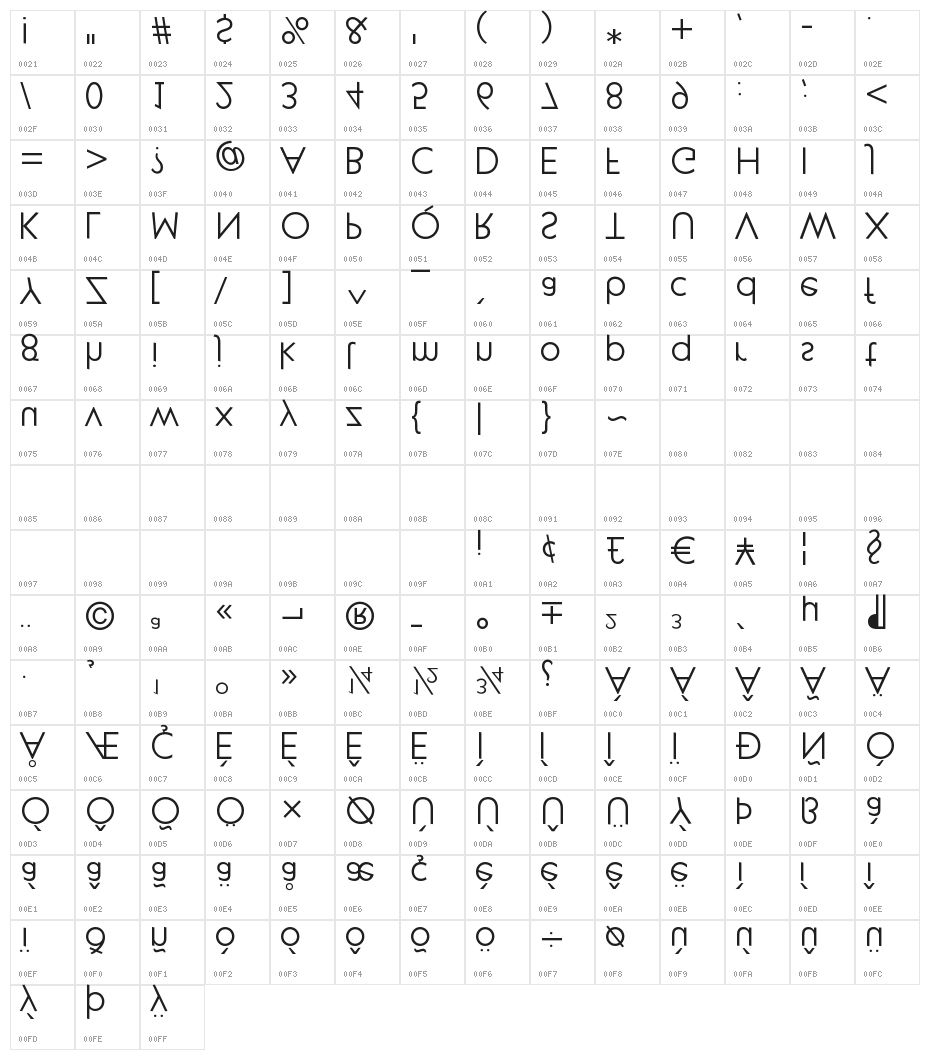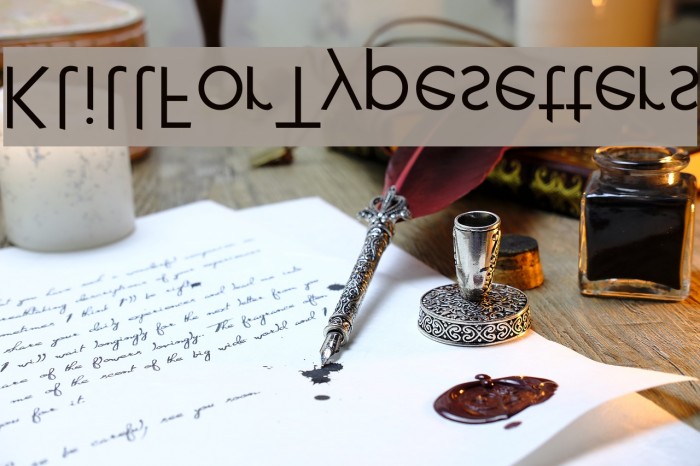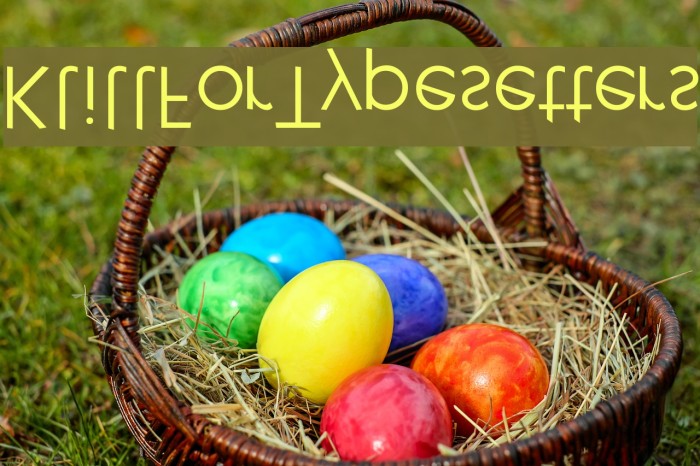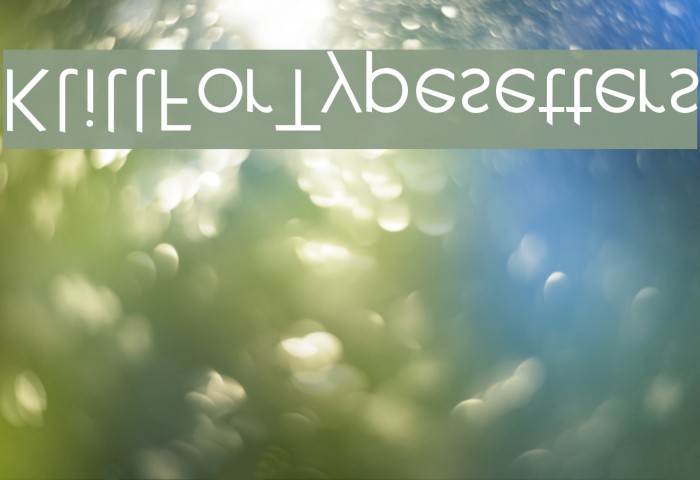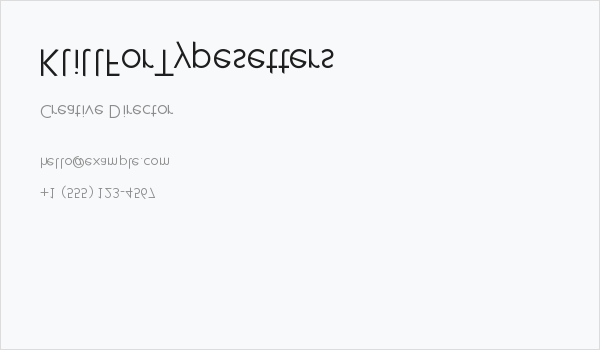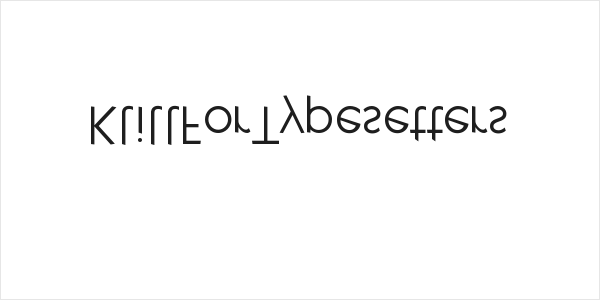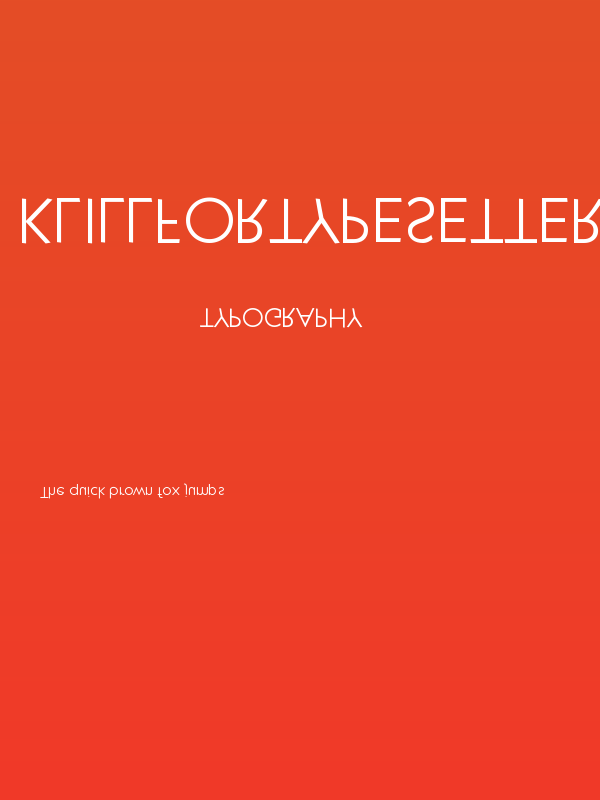
KlillForTypesetters Font
KlillForTypesetters Description
This font exhibits a modern and geometric style, characterized by its clean lines and minimalist design. The uppercase letters are distinct with sharp angles and a consistent stroke width, giving it a contemporary feel. The lowercase letters maintain the geometric theme, with a uniform height and rounded edges that add a touch of softness to the overall appearance. The numerals are designed with the same geometric precision, ensuring readability and aesthetic harmony with the alphabet. Special characters are crafted to match the font's sleek and modern look, making it versatile for various design applications.
| Use Case | Headlines, Logos, Digital Interfaces |
| Proposed Projects | Ideal for branding, digital interfaces, modern advertising, and editorial design. |